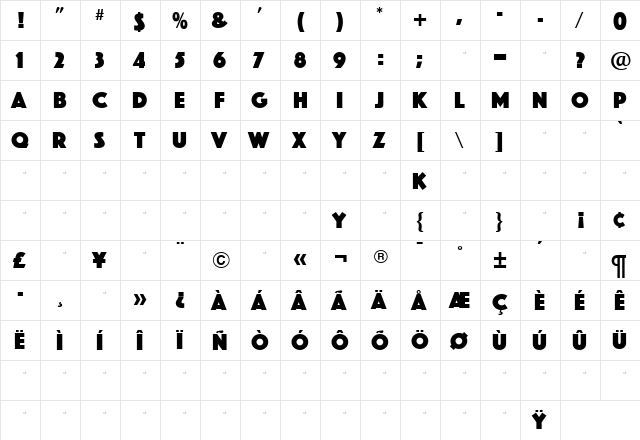
PhosphateSolid Medium
Design Context for PhosphateSolid Typeface
PhosphateSolid takes a measured approach to typography — its balanced proportions and neutral character make it a reliable workhorse for both digital and print work.
Pro Tip: Pair PhosphateSolid with a font of contrasting weight or personality to build a more expressive typographic hierarchy.